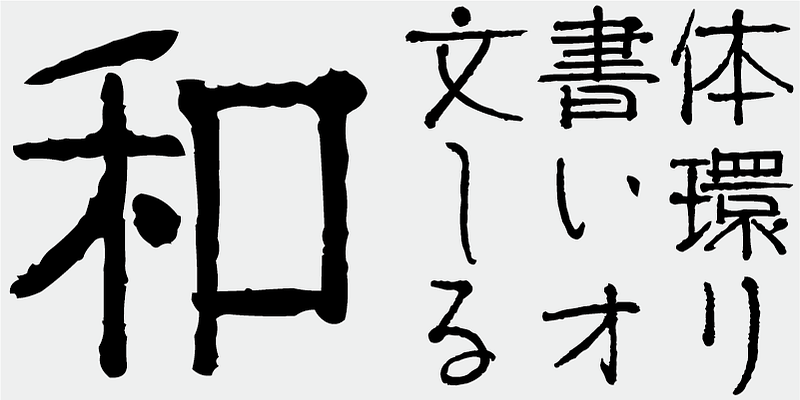
AB Hasefude Font Free Download is a dynamic and expressive Japanese brush script typeface that captures the beauty and spontaneity of handwritten calligraphy. The name “Hasefude” (はせ筆 / 長筆) suggests a flowing brush or extended stroke, which is reflected in the font’s elegant, sweeping lines and authentic ink texture. This typeface is ideal for signage, restaurant menus, traditional product packaging, cultural event posters, and anything that needs a bold yet artistic Japanese feel.
AB Hasefude Font Free Download features strong, fluid strokes that range from thick and bold to light and swift—mimicking the motion of a real calligraphy brush. Its slightly rough, hand-drawn texture adds warmth and authenticity, making it perfect for designs rooted in Japanese culture or those that aim to evoke handcrafted elegance.
The font includes full support for Hiragana, Katakana, Kanji, and basic Latin characters, allowing for smooth integration into both Japanese-only and bilingual layouts.
Lively, traditional, and full of motion—AB Hasefude Font brings the soul of Japanese brush calligraphy to your designs with bold, expressive charm.